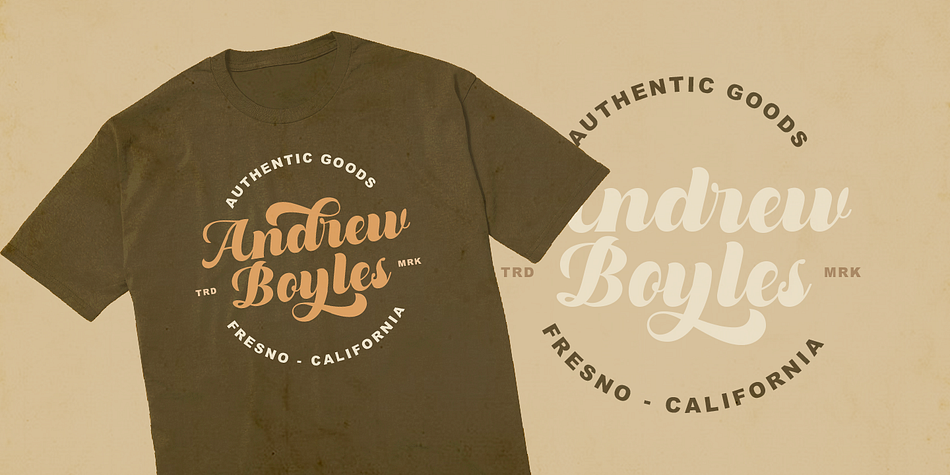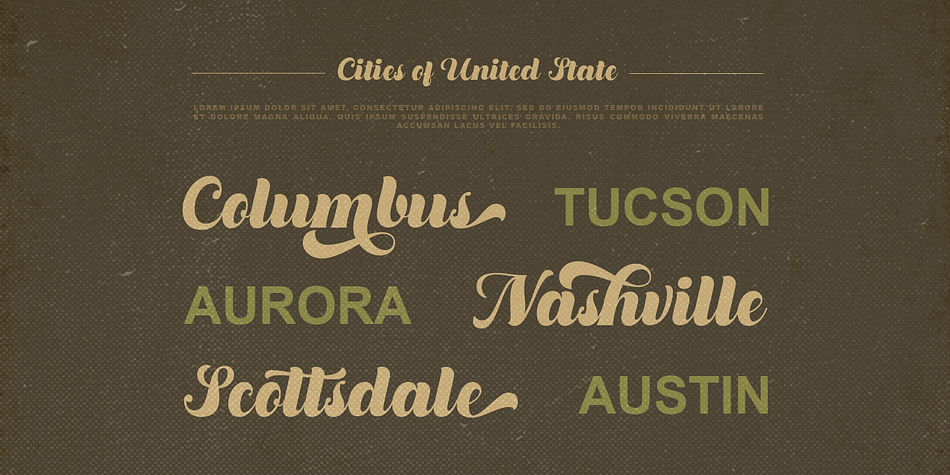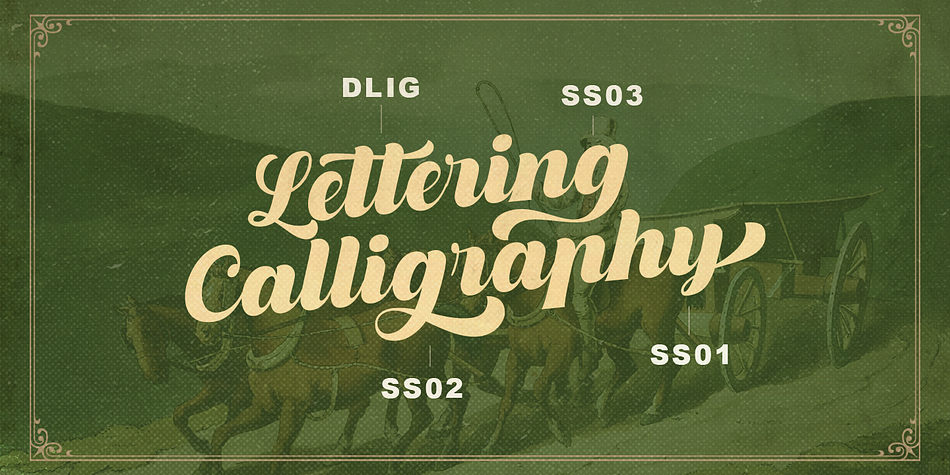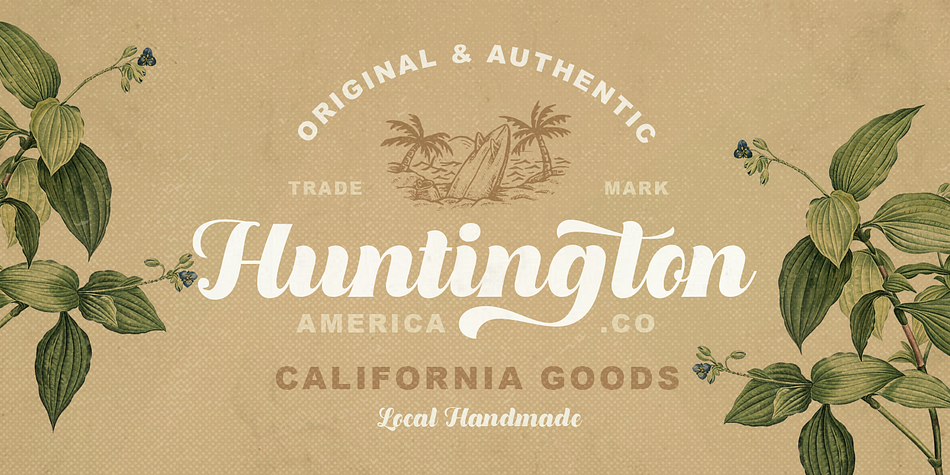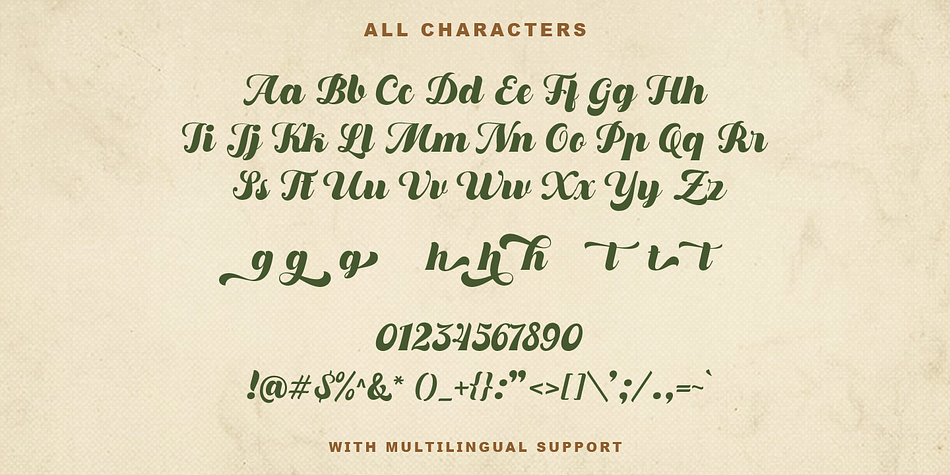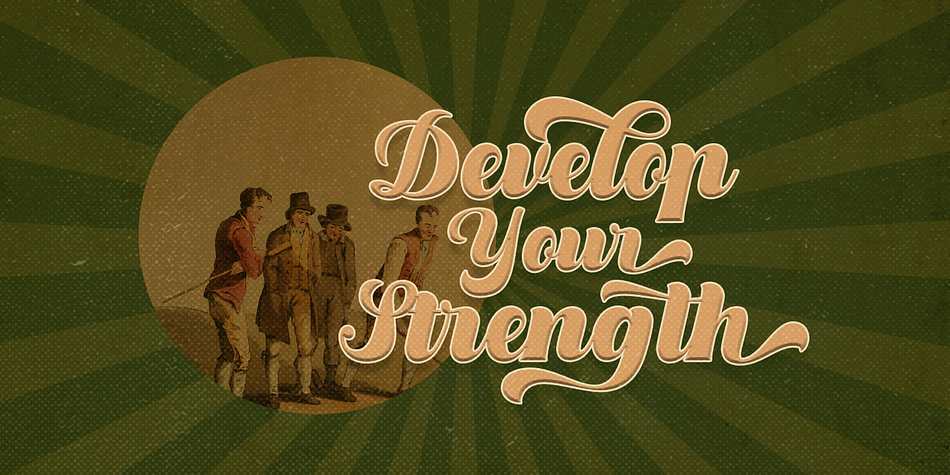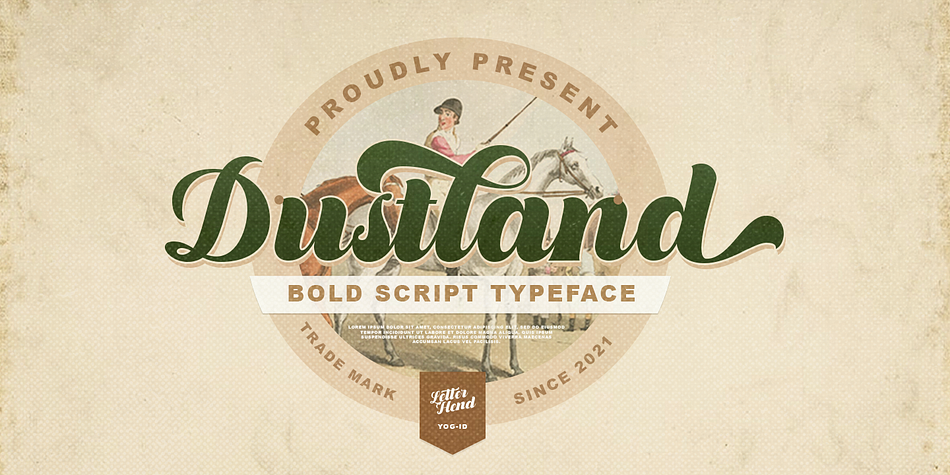
Designed by Hendry Juanda, Dustland is a script font published by Letterhend Studio.
Introducing, Dustland - a standout bold script with a touch of vintage look and feel. This type of font perfectly made to be applied especially in logo, headline, signage and the other various formal forms such as invitations, labels, logos, magazines, books, greeting / wedding cards, packaging, fashion, make up, stationery, novels, labels or any type of advertising purpose.
- alternates / swashes and ligatures